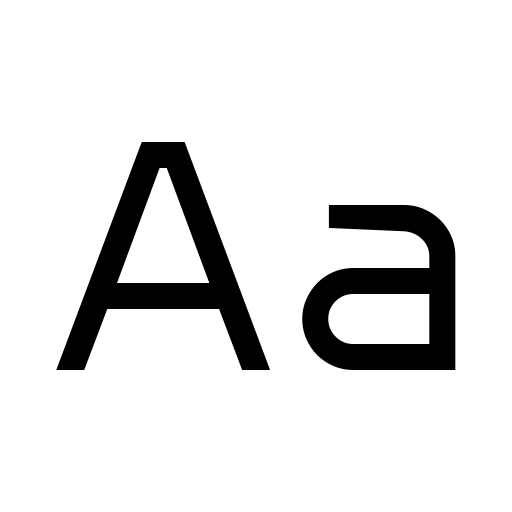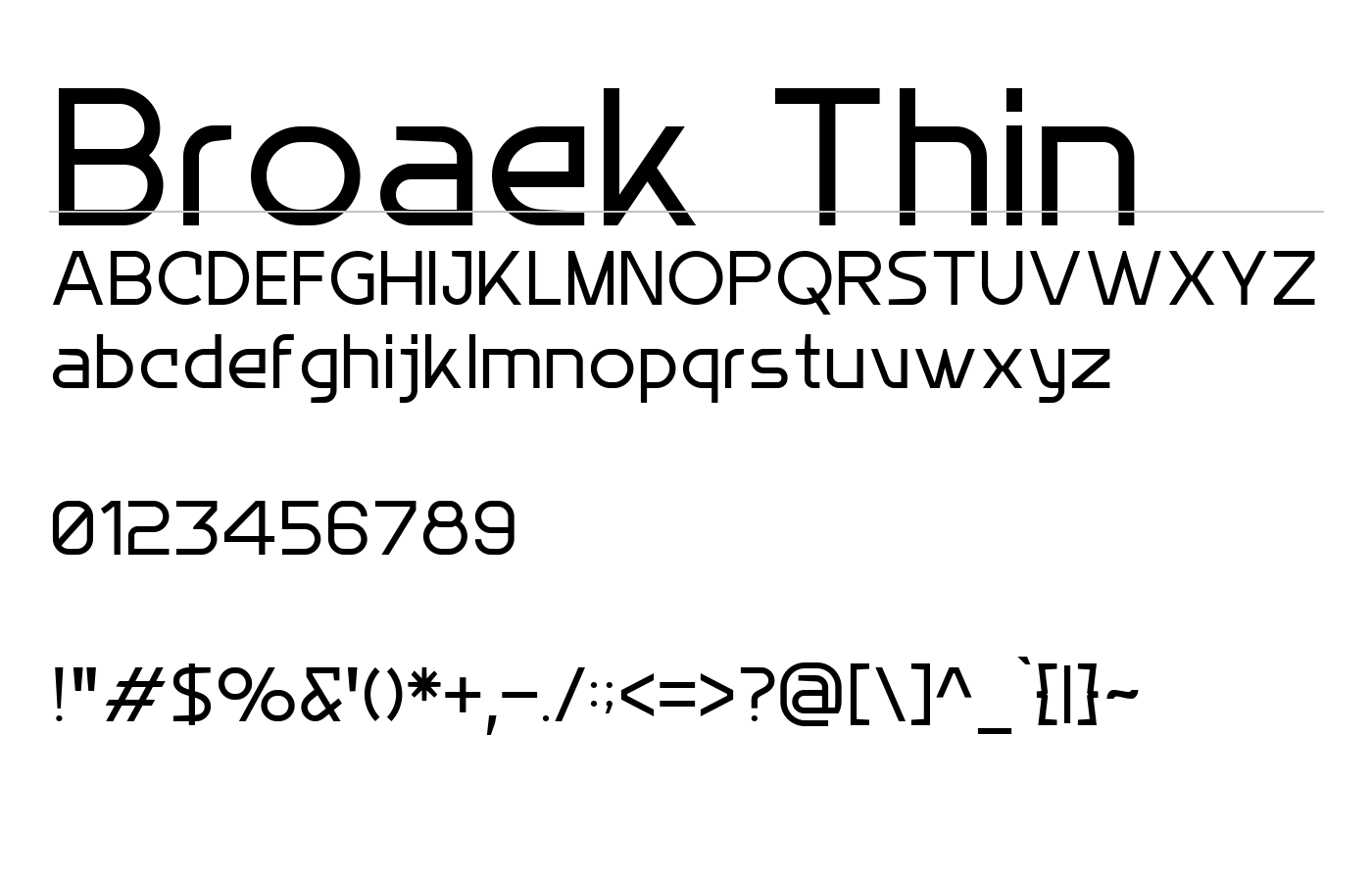
Broaek Thin is a modern, sans serif typeface characterized by its clean, geometric shapes and thin strokes. Its slightly condensed letterforms with a high x-height and subtle angular details give it a contemporary, technical feel, making it ideal for sleek branding, editorial headlines, and digital interfaces where clarity and a modern aesthetic are key. This font works well in contexts that demand a stylish yet understated look, combining readability with a touch of futuristic elegance.
Broaek Font
About Broaek Font